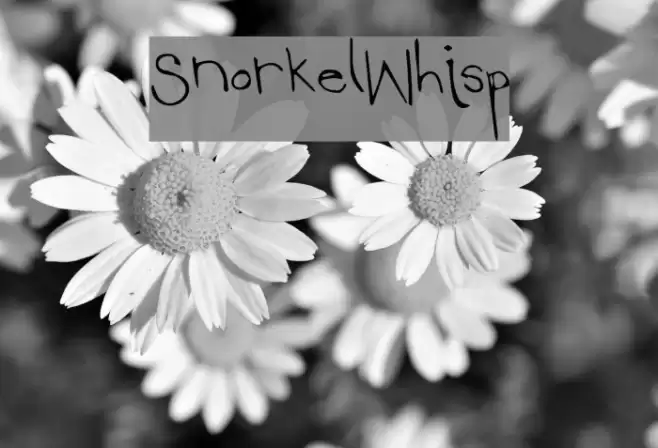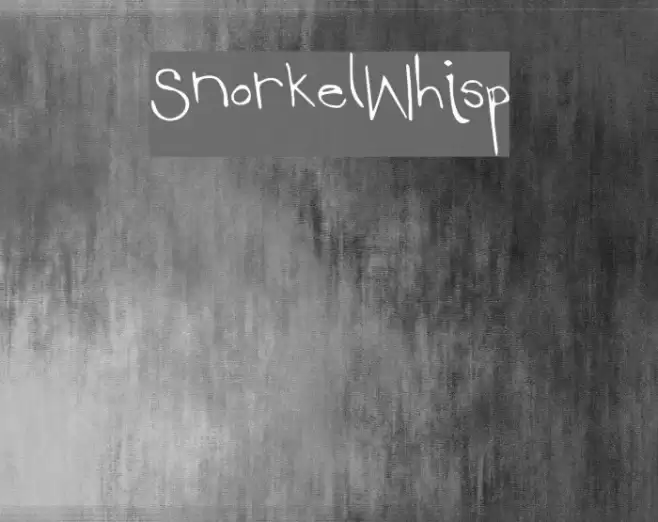
SnorkelWhisp Font
SnorkelWhisp Description
This font features a whimsical and playful design, characterized by its irregular and slightly tilted letterforms. The strokes are uneven, giving it a hand-drawn appearance that adds a touch of informality and creativity. The uppercase letters are tall and slightly narrow, while the lowercase letters maintain a consistent style with a quirky flair. The overall look is reminiscent of a casual handwritten script, making it suitable for projects that aim to convey a sense of fun and individuality. The font includes a full set of uppercase and lowercase letters, numbers, and a selection of special characters, ensuring versatility in various design applications.
A whimsical, hand-drawn font with playful, irregular letterforms from Handwritten fonts.
- Proposed Projects: Ideal for children's book covers, playful branding, greeting cards, and creative posters.
- Overall Style: Playful